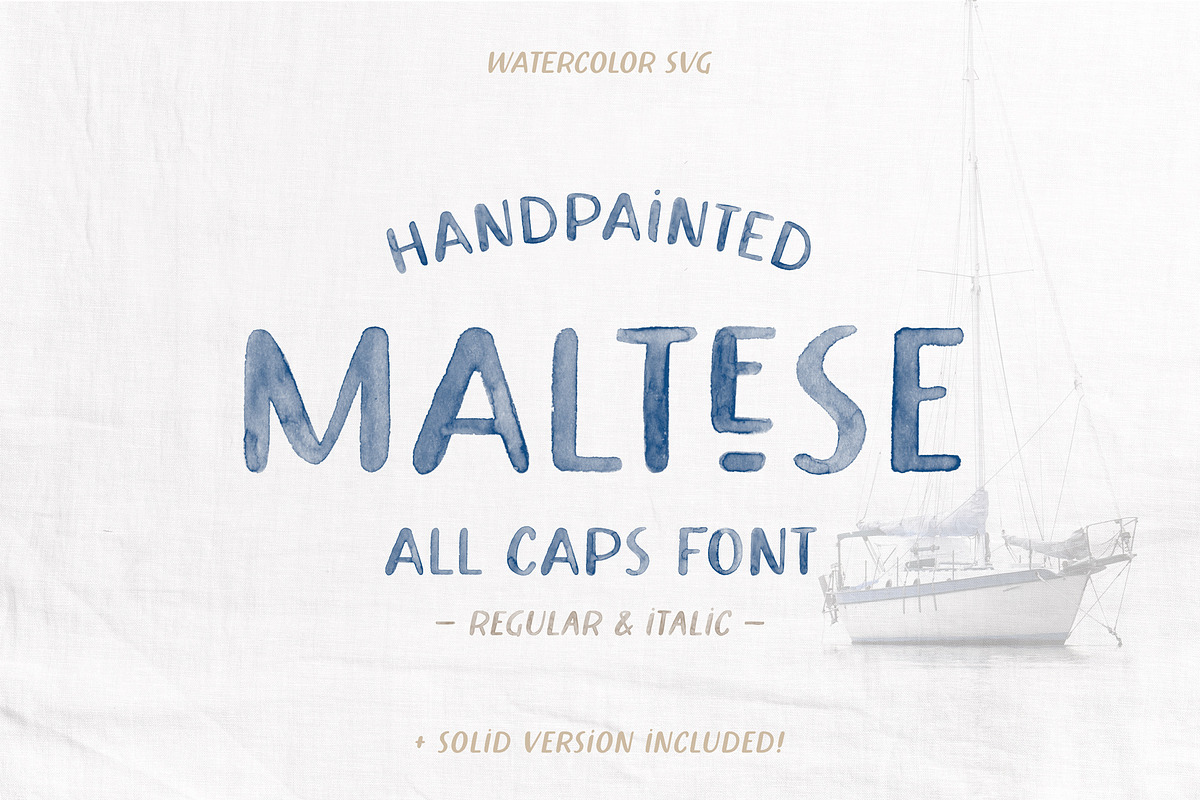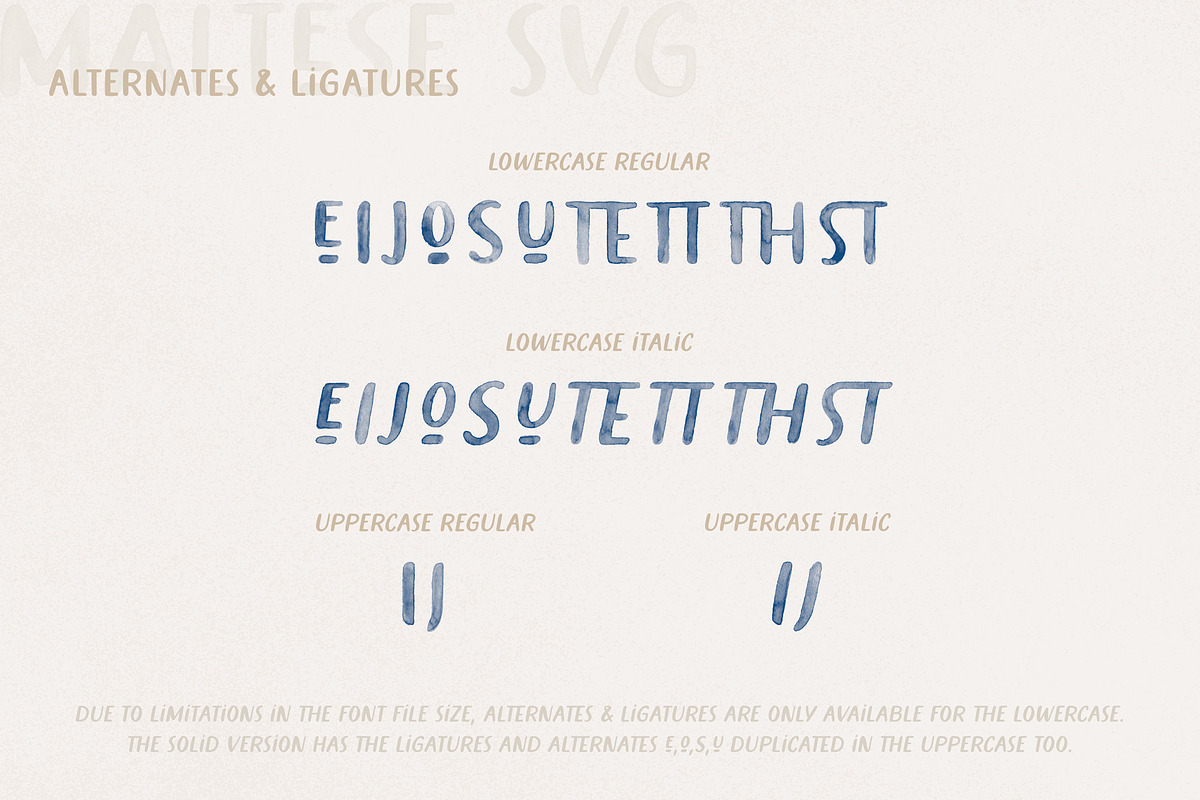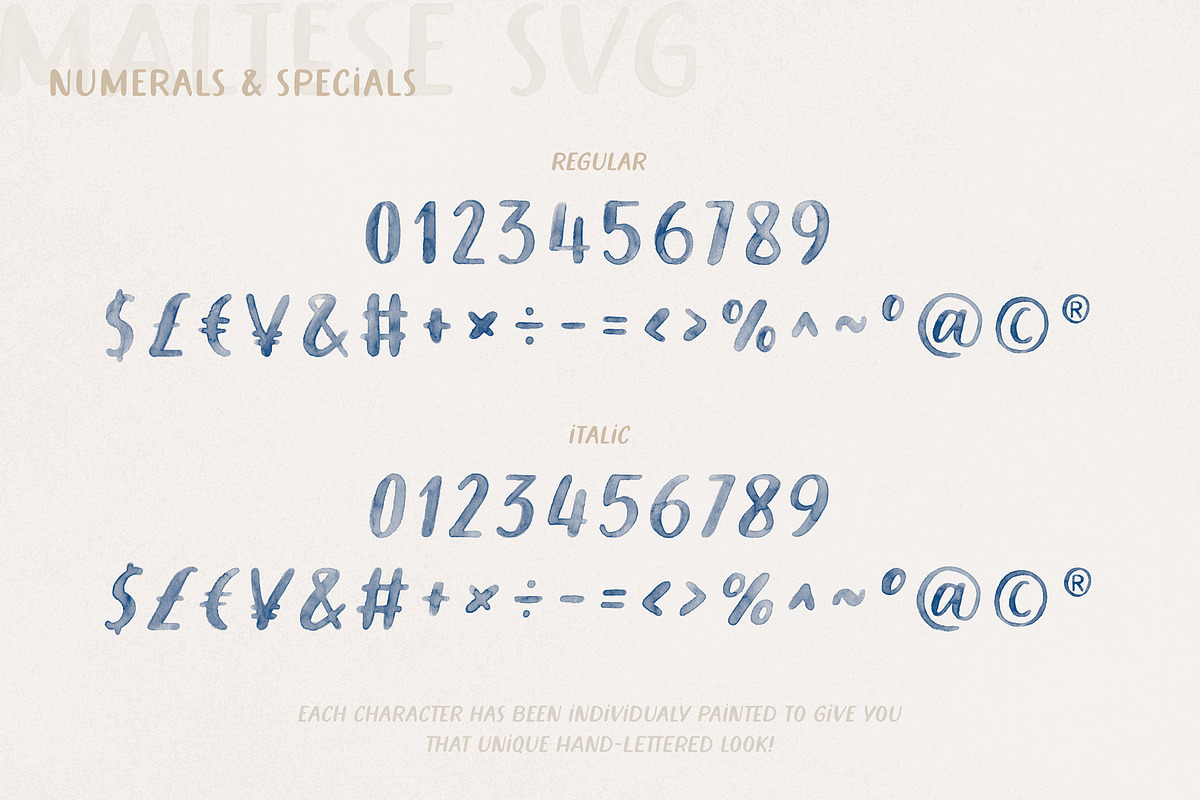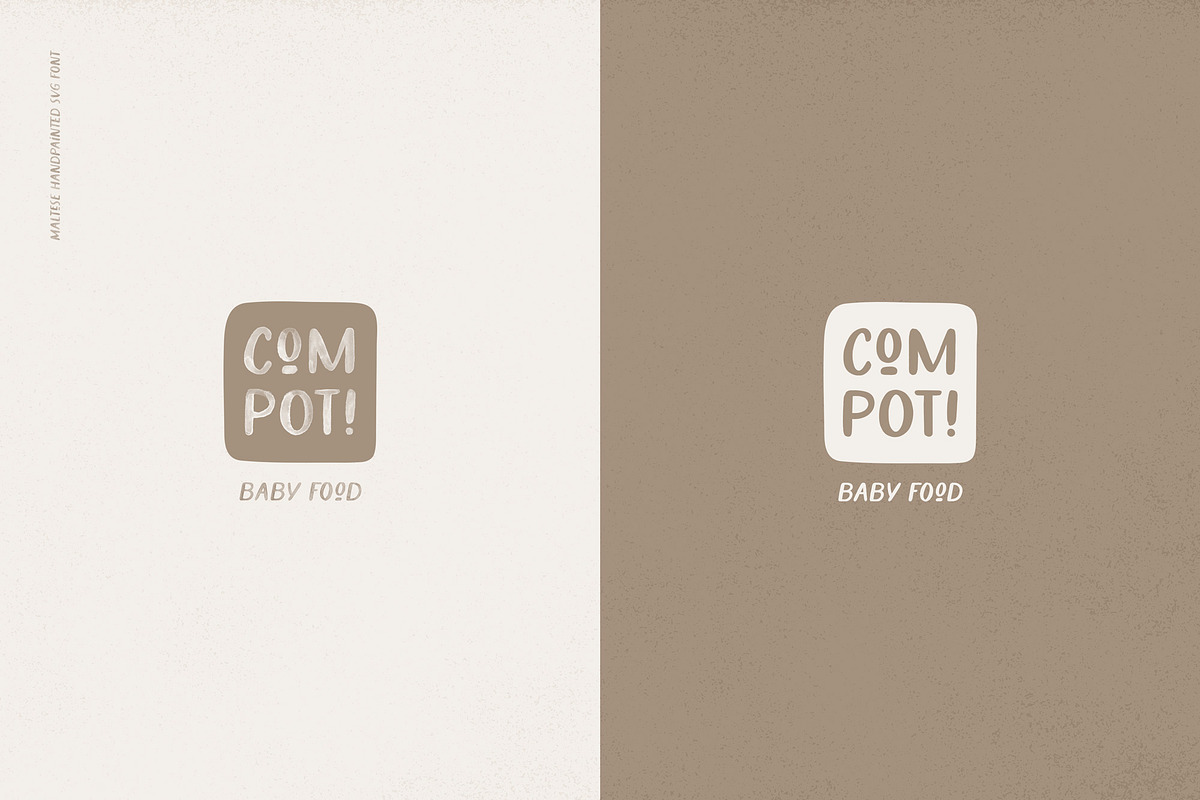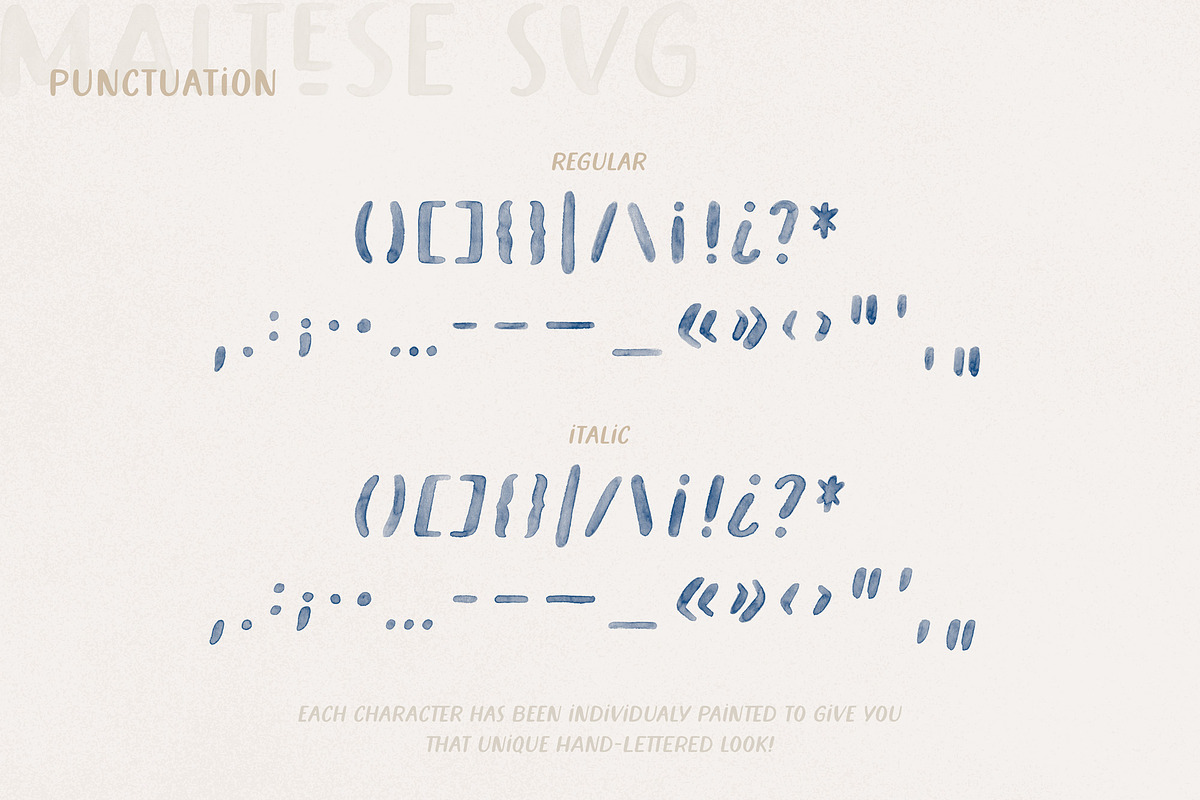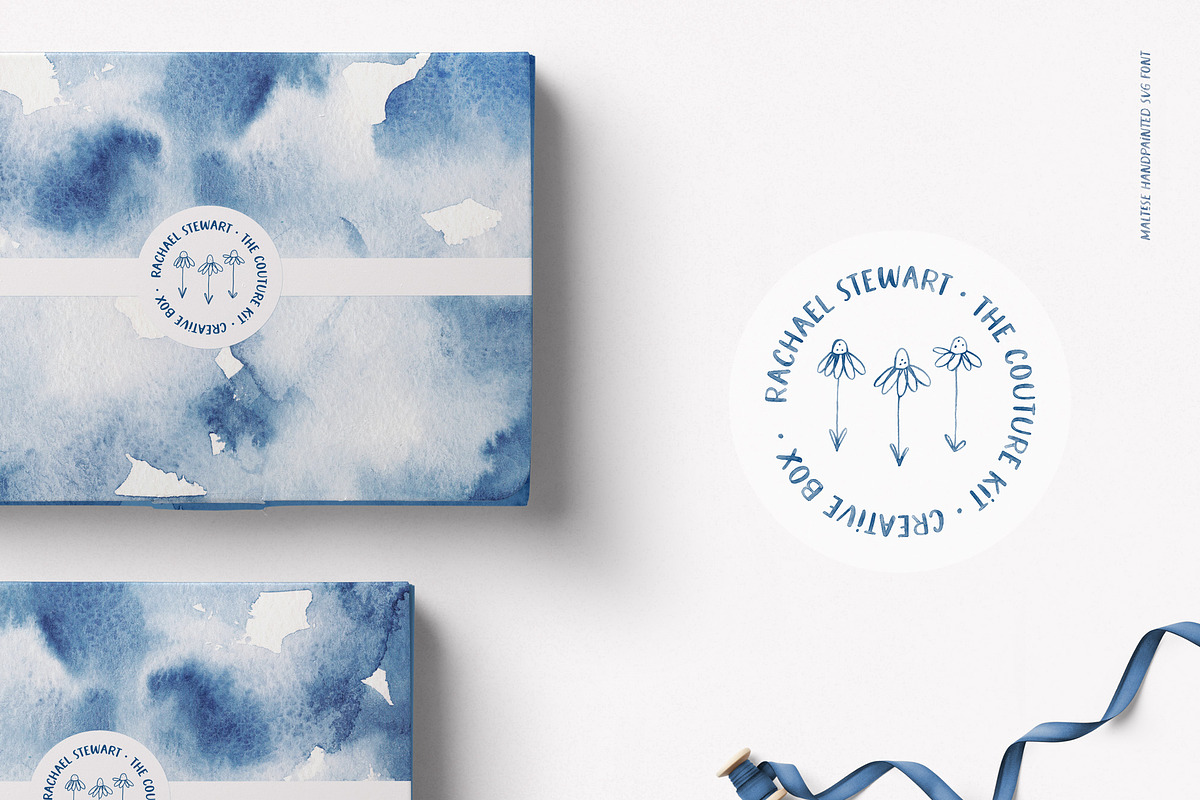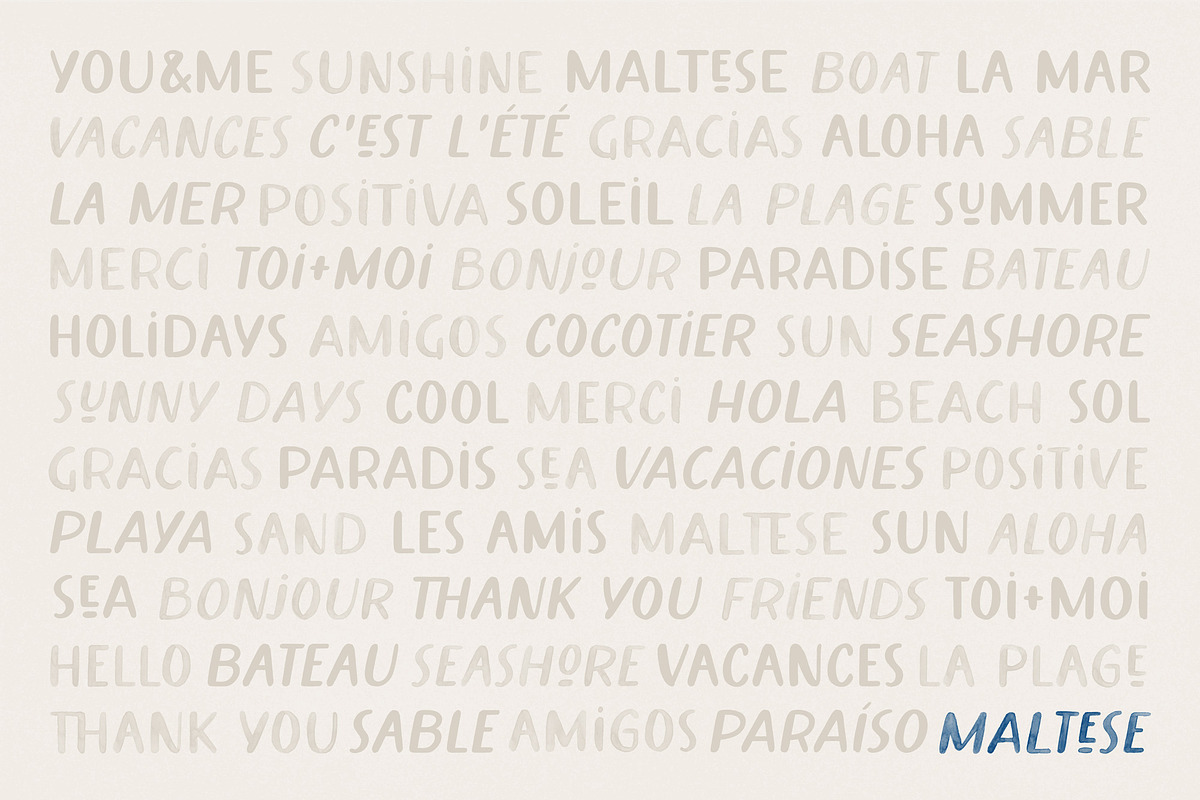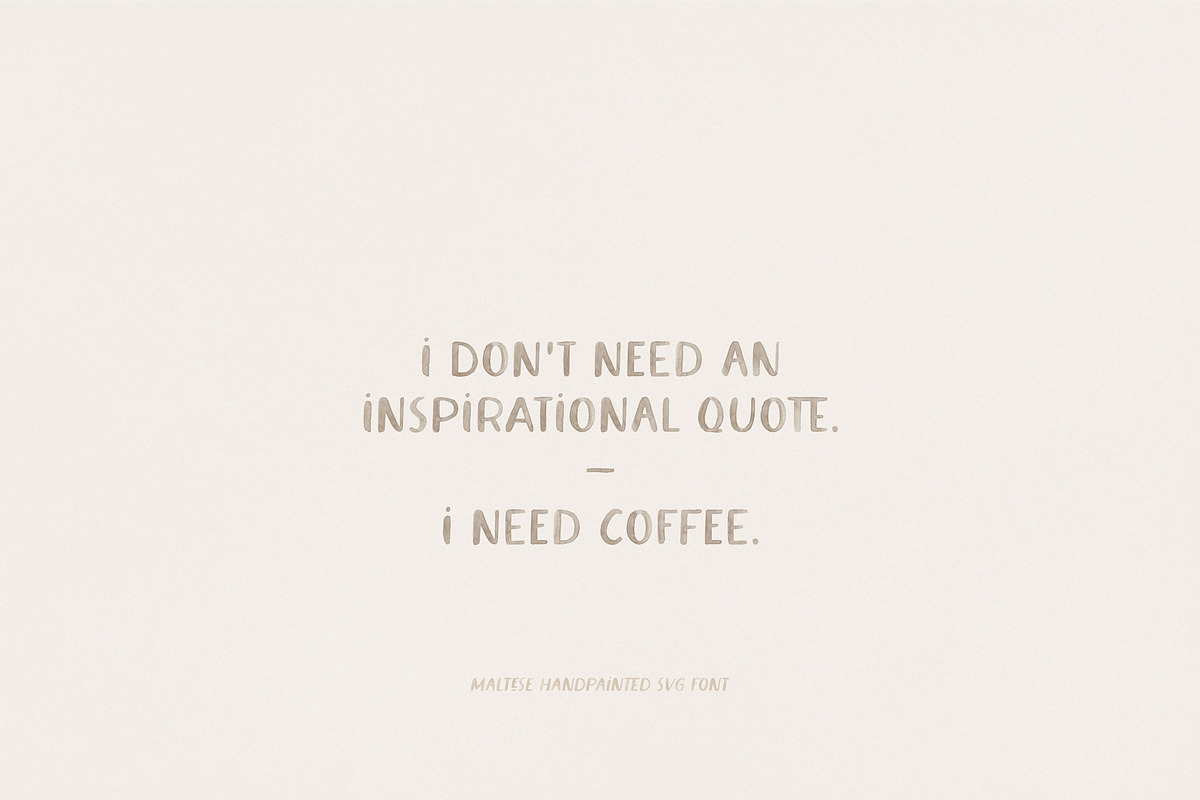
Maltese SVG Watercolor Font
Introducing Maltese an hand-painted SVG font with watercolor texture and transparency inspired by the sea!
Maltese is an all caps font family that comes in 2 different forms SVG & Solid with 2 styles each : regular & italic.
Maltese has been painted with an extreme care and edited to keep the maximum of the watercolor texture and details.
Each character of the font has been painted individually so letters from the regular and italic version don't look the same.
It will give your work a realistic watercolor look and a lovely handmade feel!
The solid version has been hand-lettered with a dip-pen and vectorized in a way that keeps the calligraphy texture of ink on the paper.
All 4 fonts include a full set of glyphs with uppercase, lowercase, alternates & ligatures, numerals & punctuation.
Maltese SVG: Regular/Italic • The hand-painted letters with a high-definition watercolor texture & transparency.
Maltese Solid: Regular/Italic • The vector version of the SVG. This one has been hand-lettered with a nib pen and keeps the imperfections and details of the ink on the paper.
Alternates & ligatures
Maltese is an all caps font with a full set of uppercase and a complete different uppercase set assigned to the lowercase to avoid duplication in the letters.
Some alternates and ligatures are included which are the same for both lowercase and uppercase.
The SVG version only includes alternates and ligatures for the lowercase set.